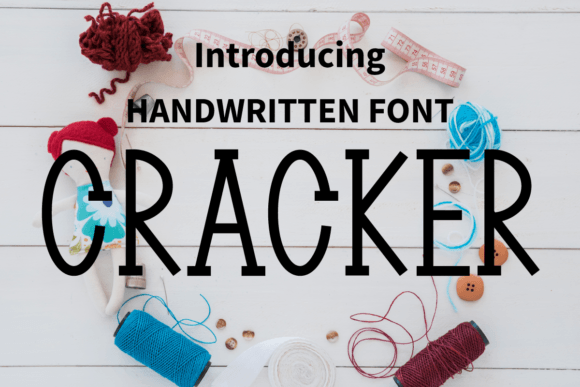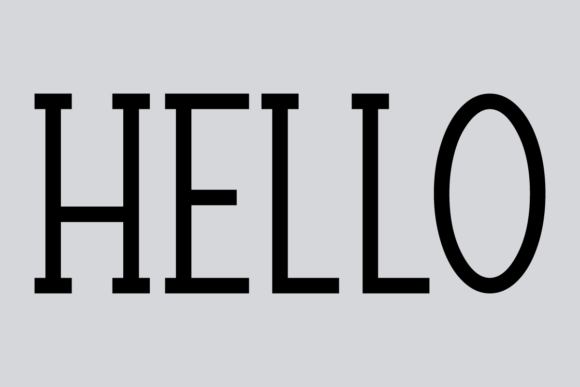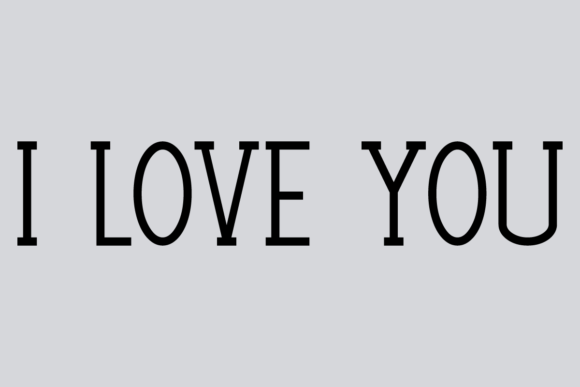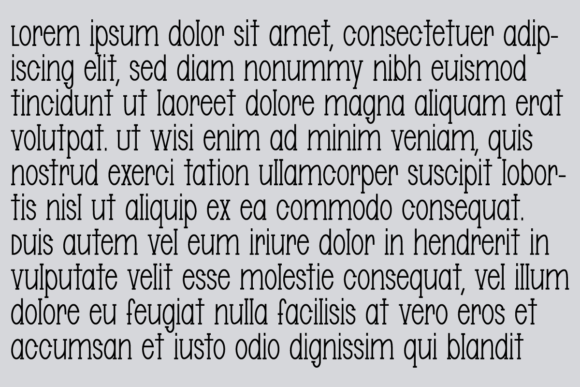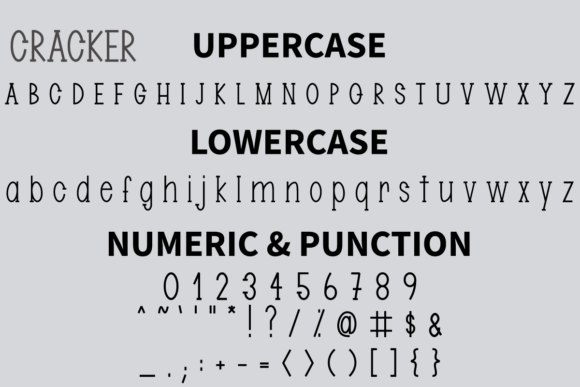
About Cracker Font Download
The Cracker Font Download is a simple and friendly handwritten script created to add fun, warmth, and creativity to your projects. With whimsical curves and a slightly quirky handwritten style, this font stands out while remaining approachable and versatile. Whether you are working on invitations, branding, or digital projects, Cracker is designed to brighten your designs with charm and personality.
A Simple Script with Whimsical Charm
The Cracker script font blends natural handwritten strokes with playful energy. As a result, it feels timeless, creative, and easy to use. Furthermore, it adapts effortlessly from small stationery projects to bold display designs, making it a reliable choice for hobbyists and professional designers alike.
Handwritten fonts always add intimacy and authenticity. The Cracker Font is ideal for wedding invitations, thank you notes, birthday cards, and seasonal greetings. Because of its quirky handwritten look, every card feels polished and heartfelt. In addition, it ensures that your stationery leaves a memorable impression.
Branding and Logo Design with Cracker Font
Typography sets the visual tone of a brand. The Cracker handwritten font works perfectly for boutique logos, product packaging, and promotional campaigns. Its handwritten strokes create an approachable yet professional feel. Therefore, it is especially effective for lifestyle, creative, and personal branding projects.
Posters, Titles, and Editorial Projects
The Cracker Font Download also shines in posters, banners, book covers, and magazines. It maintains clarity at all sizes while adding handwritten beauty. Consequently, it is a dependable choice for designers who value both creativity and readability.
In the digital-first world, fonts must perform well across platforms. The Cracker typeface integrates seamlessly into Instagram posts, YouTube thumbnails, Pinterest boards, and blogs. Because of its fun handwritten energy, it makes digital content look modern, cheerful, and engaging.
Why Designers Choose Cracker Typeface
Designers love fonts that combine charm with usability. The Cracker handwritten script maintains its quirky personality while staying legible and versatile. This makes it ideal for professionals as well as hobbyists. Moreover, its timeless style ensures it will remain trendy for years to come.
Add Whimsical Charm to Your Projects Today
If you’re searching for a handwritten script that feels simple, friendly, and versatile, the Cracker Font Download is the perfect choice. From greeting cards and invitations to posters, logos, and social media designs, it enriches every project with handwritten warmth. Finally, download Cracker today and let your work shine with playful creativity.